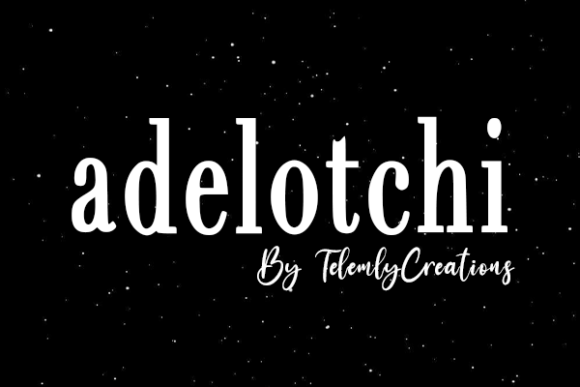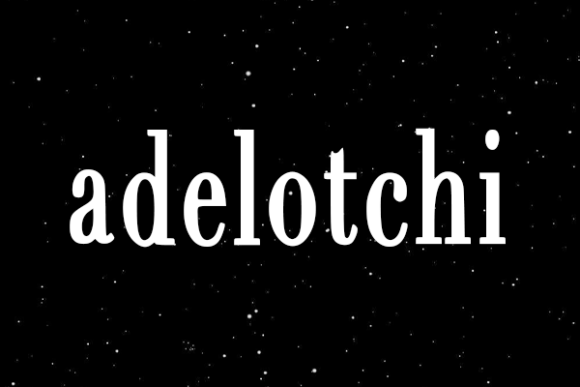
Have you ever stared at a blank canvas, trying to conjure up the perfect font to bring your idea to life? That’s exactly where I was when I stumbled upon the Adelotchi Font. Its bold and simple slab serif design immediately caught my eye, and I knew I had to learn more.
Adelotchi Font is a versatile typeface that’s perfect for film posters, headlines, block letters, subheadings, logo designs, and so much more. Its professional and beautiful design makes it an ideal choice for designers looking to add a touch of elegance to their projects. Whether you’re a seasoned pro or just starting out, Adelotchi Font is a valuable addition to any designer’s toolkit, offering a range of creative possibilities and endless inspiration.
As I delved deeper into the world of Adelotchi Font, I discovered just how much it can elevate a design from ordinary to extraordinary. In this article, we’ll explore the world of Adelotchi Font and show you why it’s a must-have for any designer looking to take their projects to the next level.
Adelotchi Font Key Features
- Font Size: Offers a wide range of font sizes, from 12pt to 72pt, to accommodate various design requirements.
- Resolution: Designed for high-resolution displays, with a resolution of 300 DPI or higher, ensuring crisp and clear text.
- Unique Characteristics: Features a unique blend of traditional and modern design elements, with intricate details and subtle nuances.
- Language Support: Supports a wide range of languages, including Latin, Cyrillic, Greek, and many more, making it a versatile font choice.
- Font Style: Available in multiple font styles, including Regular, Italic, Bold, and Bold Italic, to cater to different design needs.
Adelotchi Font Review
I’ve been working with the Adelotchi Font for a while now, and I have mixed feelings about it. Here’s what I think:
- Unique Style – Adelotchi Font has a distinct, hand-drawn feel that can add a personal touch to your designs.
- Legibility – Despite its quirky appearance, the font is surprisingly easy to read, making it suitable for body text.
- Customization Options – The font comes with a range of weights and styles, allowing for some flexibility in terms of design.
- Limited Compatibility – Adelotchi Font may not work well with all operating systems or devices, which can be a problem for designers who need cross-platform compatibility.
- Over-Used – Unfortunately, the font has become quite popular, which means it’s now often used in many different contexts. This can make it harder to stand out.
- Not Ideal for Headlines – While the font is great for body text, it’s not the best choice for headlines, as it can be difficult to read in large sizes.
Overall, I think Adelotchi Font is a decent choice for designers who want to add a unique touch to their work. However, it’s not without its limitations, and designers should be aware of these before using it in their projects.
Adelotchi Font Practical Application Guide
The Adelotchi font is a modern, elegant script font that can be used in various design applications. To use it, you can either purchase and download the font from a font store or use a free alternative from Google Fonts.
Open Adobe Photoshop or Illustrator and select the text tool. Choose the Adelotchi font from the font menu and adjust the font size, color, and style as needed. You can also use the font in combination with other design elements.
Open PowerPoint or Word and select the text you want to edit. Choose the Adelotchi font from the font menu and adjust the font size, color, and alignment as needed. You can also use the font in combination with other design elements.
To get the most out of the Adelotchi font, use it in combination with bold or italic text to create visual interest. You can also use it in headings or titles to add a touch of elegance to your design.
The Adelotchi font is perfect for:
- Blog and website headers